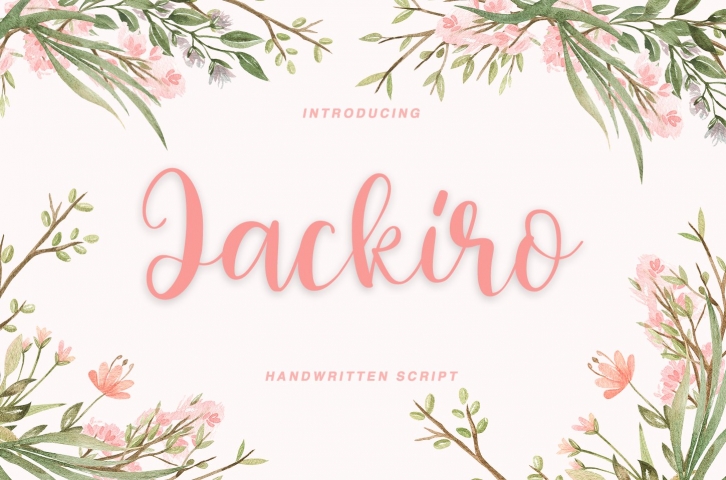
Jackiro - a new fresh handmade calligraphy font.
Very suitable for greeting cards, branding materials, business cards, quotes, posters, and more!This font are perfect for wedding postcard. Or you can create perfect and unique design of your logo, blog, stationery, marketing, magazines and more :)
Ligatures ,swashes